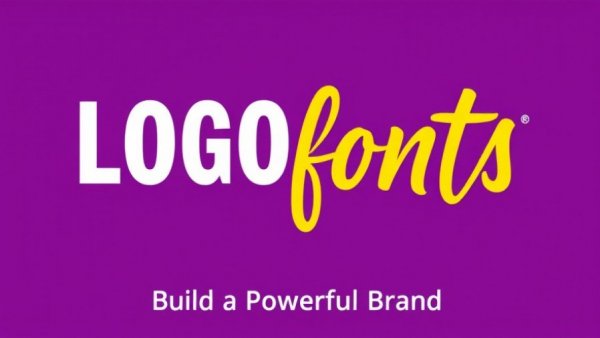
Unlock the Power of Brand Identity with the Best Logo Fonts
Graphic of 'best logo fonts' with bold typography on purple.
Choosing the Right Logo Font: The Foundation of Your Brand
A powerful logo is more than just a visual appeal; it’s an essential part of building a brand identity. Logo fonts are particularly crucial, as they help encapsulate the essence of what a brand represents. A good logo font ensures that potential customers can not only recognize but also remember a brand with ease. As a graphic designer might say, typography in logos can be as significant as the imagery itself.
Why Typography Matters in Branding
Have you ever considered how a font can affect your perception of a brand? Each letter shape and weight influences how people feel about the business it represents. Serif fonts tend to convey tradition and reliability—think of law firms and publishing houses. In contrast, sans serif fonts exude modernity and clarity, which is why they are often seen in tech startups. Meanwhile, script fonts offer elegance, making them perfect for beauty products and high-end restaurants.
Exploring Iconic Logo Fonts to Elevate Your Brand
Here’s a curated list of some of the best logo fonts that can help to craft a distinctive brand identity:
1. Modern Logo Family Font – Giner: This sans serif font family shines with its clean shapes and versatility, consisting of seven different weights that cater to various branding needs.
2. Sora – Modern Luxury Logo Font: Perfect for any luxury branding, Sora combines stylishness with simplicity.
3. Morxin Bold: This logo font ensures strength and clarity, suitable for both social media ads and branding projects.
4. Dorsan: A sans logo font ideal for display designs that convey strength.
5. Diefgavo: Clean and straightforward, Diefgavo remains versatile across branding contexts.
Simple vs. Complicated: The Best Practices
When designing a logo, simplicity often prevails over complexity. A clean, legible font is typically easier for customers to identify quickly. Consider how established brands keep their typography straightforward; simplicity aids recognition, especially in today’s fast-paced digital world. Before finalizing a logo font, ensure to test how it looks across various applications, from website headers to business cards.
Steps to Selecting Your Perfect Logo Font
Finding the right logo font is straightforward if approached correctly. Start by considering your brand’s identity and core message; this will guide your font selection process. Next, narrow down choices based on style, ensuring readability in different applications—whether small icons or large signage. Additionally, remember to analyze your competitors to ensure your branding stands out effectively.
Working with a Graphic Designer: Your Key to Success
If navigating the world of logo design poses challenges, consider seeking assistance from a local graphic designer. They bring invaluable insights about typography choices that align with your brand message. This collaboration can save time and yield professional results, allowing you to focus on other aspects of your business.
Final Thoughts: Impact of Typography
The font you select for your logo is not just a design choice; it’s a key component that reflects your brand’s identity. From influencing customer perception to enhancing readability, typography plays a fundamental role in developing a successful brand image. As you embark on designing your next logo, prioritize finding a font that resonates with your vision and audience.